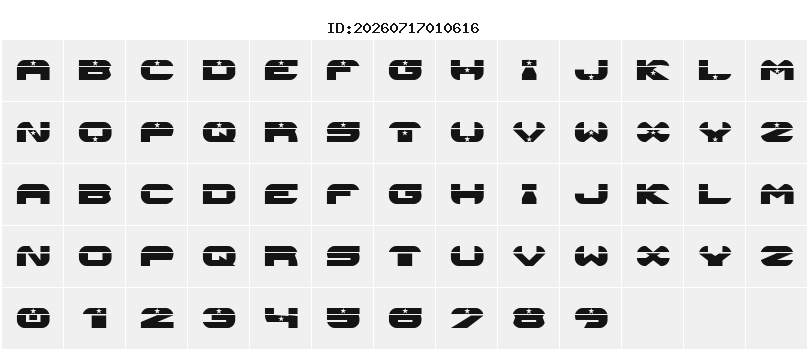
ASTRONEO Preview
• Font Name: ASTRONEO
• Full Font Name: ASTRONEO
• PostScript Name: ASTRONEO
• Designer: Cheikhna Diouf
• Manufacturer: Astroneo Inc.
About ASTRONEO.ttf
ASTRONEO.ttf is a modern, elegant sans-serif font designed for ultimate readability and visual harmony. Perfect for branding, headlines, web design, and print materials.